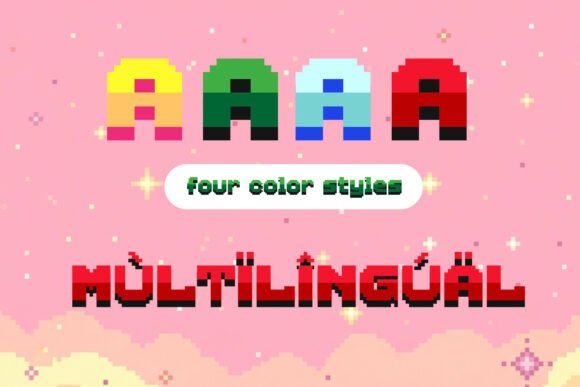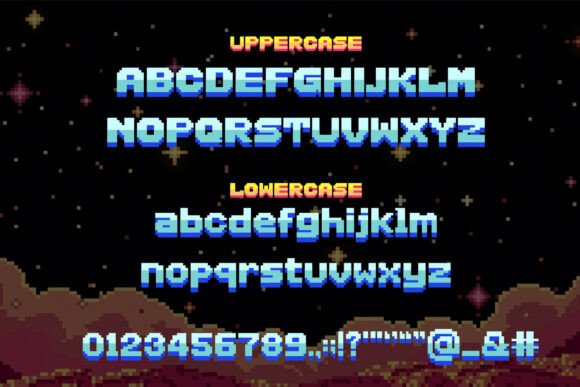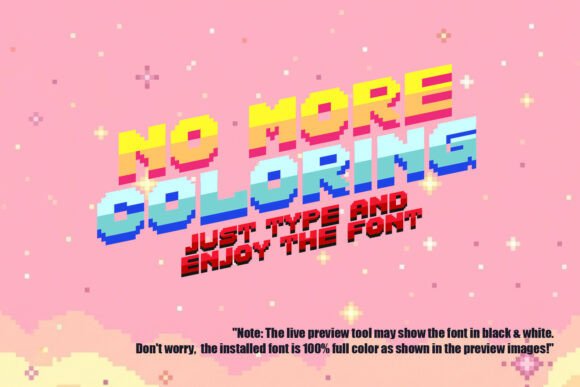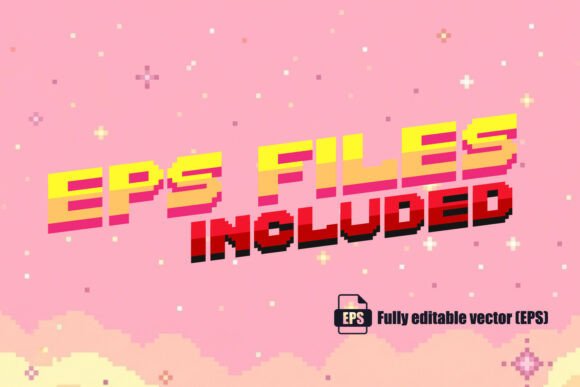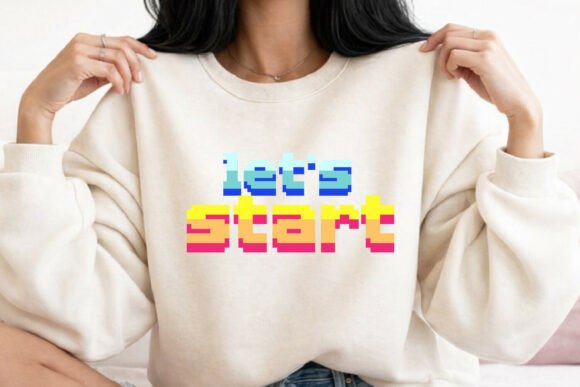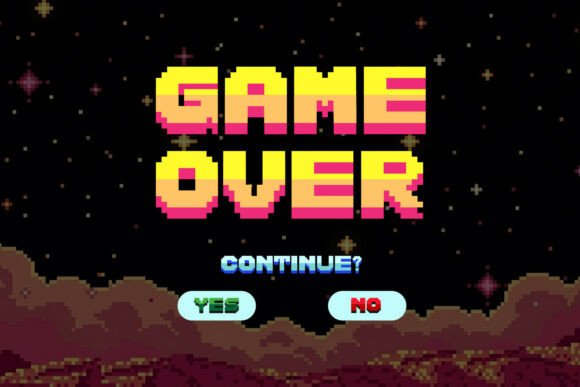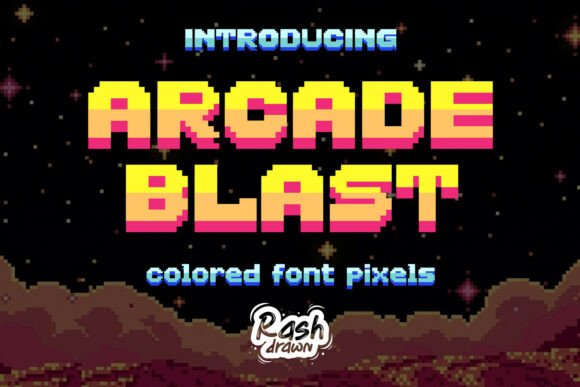
Revive the Retro Vibes with Arcade Blast Font
Remember the thrill of feeding quarters into an arcade machine, surrounded by the mesmerizing glow of pixelated graphics? The nostalgia is real, and it’s about to get a whole lot more creative. As a designer, I’ve had my fair share of scouring font libraries for that perfect, retro-inspired typeface. And, trust me, the search is over with Arcade Blast – a vibrant, pixel-perfect color font that’s about to level up your designs.
A Personal Design Moment: The Quest for Retro Authenticity
I recall working on a project for a client who wanted a retro-themed poster that screamed 80s and 90s arcade vibes. The catch? It had to be pixel-perfect. After hours of digging through font libraries, I stumbled upon Arcade Blast. The instant I laid eyes on it, I knew I’d hit the jackpot. The pre-set retro gradients, the authentic pixel aesthetic – it was love at first sight. And, I’m excited to share its awesomeness with you.
Arcade Blast: A Closer Look
So, what makes Arcade Blast so special? Let’s dive into its fantastic features:
• ✨ Instant Color: Ditch the manual coloring and enjoy pre-set retro gradients that give your text an instant pop of color.
• ✅ Comprehensive Set: Uppercase, lowercase, numbers, punctuation, and symbols – it’s got everything you need.
• ✅ Multilingual Support: Accented characters ready for international projects? Yes, please!
Here’s my honest take on Arcade Blast:
• ✨ The vibrant, retro gradients that add an instant wow factor to any design.
• ✅ The pixel-perfect aesthetic that screams 80s and 90s arcade authenticity.
• ✅ The comprehensive character set that’s ready for multilingual projects.
The Designer Inspiration Behind Arcade Blast
Legend has it that the creators of Arcade Blast were huge fans of classic arcade games. They wanted to bottle up the energetic, pixelated essence of Pac-Man and Donkey Kong and put it into a font. And, boy, did they succeed. The result is a font that’s equal parts nostalgic and modern – perfect for game branding, streetwear apparel, or retro-themed event posters.
Is Arcade Blast suitable for body text? While Arcade Blast is primarily designed for display text, it can be used for short paragraphs or captions.
Can I edit the color effects? The pre-set gradients are part of the font’s OpenType features. Some design software allows editing these effects; others might not.
And there you have it – Arcade Blast, a vibrant retro pixel color font that’s sure to level up your designs. Whether you’re a designer, crafter, or creative hobbyist, this font is a must-have for anyone looking to add a dash of nostalgia to their work.